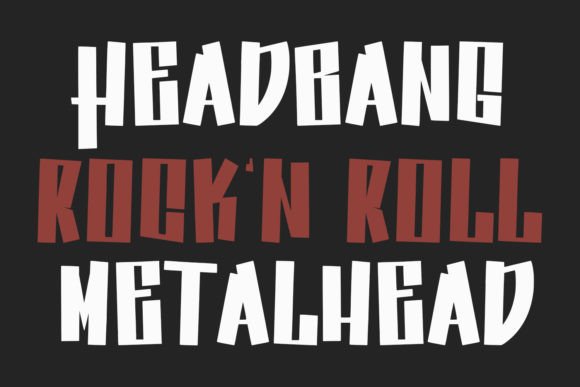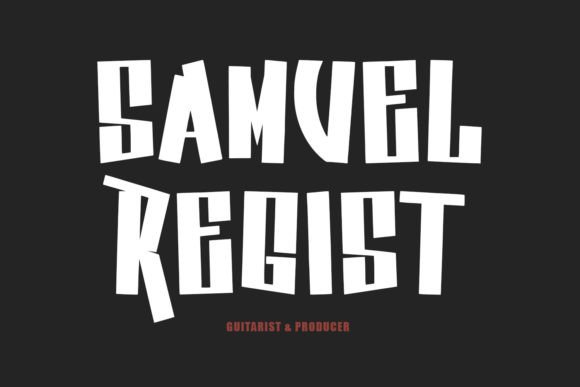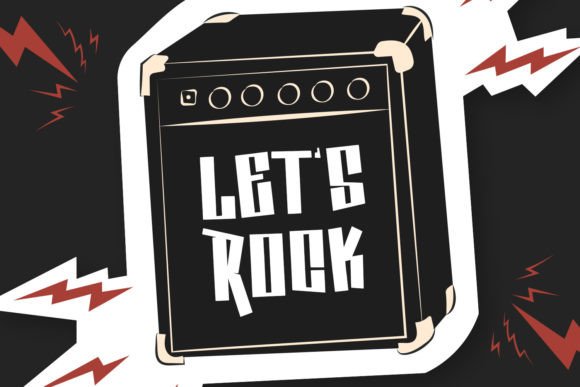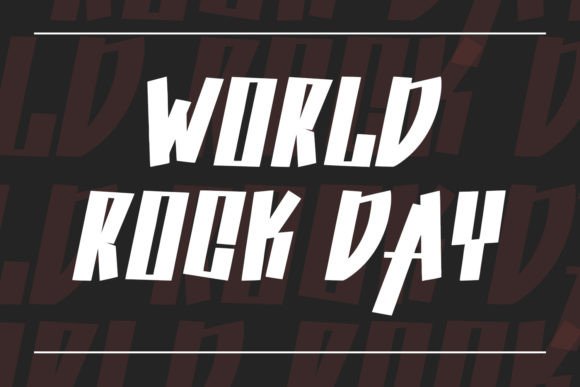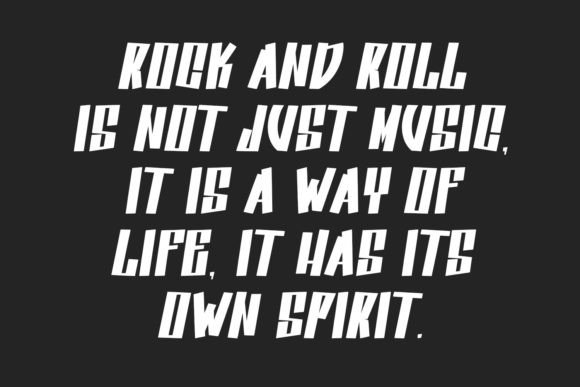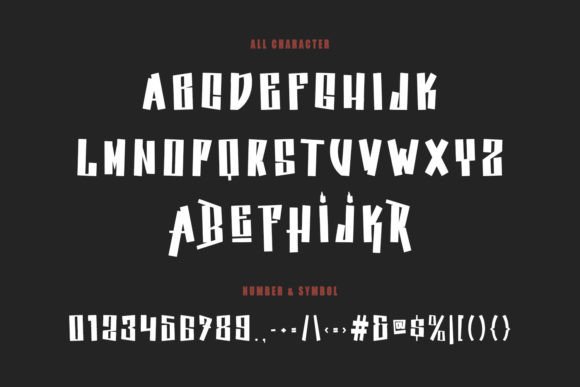
Discover the Magical World of Bobee Rock Font
Are you tired of using the same old fonts in your designs? Look no further! Bobee Rock Font is here to take your creative projects to the next level. This incredibly cool and unique display font is sure to immerse your designs into a magical world, making them stand out from the crowd.
A Modern yet Whimsical Style
Bobee Rock Font boasts a modern yet whimsical style that is perfect for designers and crafters looking to add a touch of personality to their work. Its unique and quirky design elements make it an excellent choice for a wide range of projects, from branding and advertising to packaging and signage.
What Makes Bobee Rock Font So Special?
So, what sets Bobee Rock Font apart from other fonts out there? Here are just a few of its standout features:
- Unique Design: Bobee Rock Font features a one-of-a-kind design that is sure to grab attention and leave a lasting impression.
- Modern Aesthetic: Its modern style ensures that your designs look fresh and contemporary, perfect for brands and businesses looking to stay ahead of the curve.
- Whimsical Flair: The font’s whimsical elements add a touch of playfulness and fun to your designs, making them perfect for projects that require a bit of personality.
- Versatility: Bobee Rock Font is incredibly versatile, making it suitable for use in a wide range of projects, from digital designs to print materials.
How to Use Bobee Rock Font in Your Designs
- Use it for Headings: The font’s bold and attention-grabbing design makes it perfect for use in headings and titles.
Bobee Rock Font is perfect for designers and crafters looking to add a touch of magic to their projects. Whether you’re working on a branding campaign, creating packaging for a new product, or designing signage for a business, this font is sure to impress.
In conclusion, Bobee Rock Font is an incredibly cool and unique display font that is sure to take your designs to the next level. Its modern yet whimsical style makes it perfect for a wide range of projects, and its versatility ensures that it can be used in everything from digital designs to print materials. So why wait? Download Bobee Rock Font today and start immersing your designs in a magical world!
Key Features of Bobee Rock Font
| Font Style | Display Font |
| Design Elements | Modern, Whimsical |
| Use Cases | Branding, Advertising, Packaging, Signage |